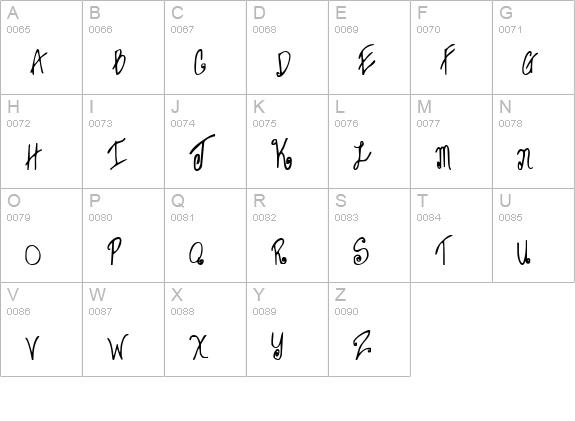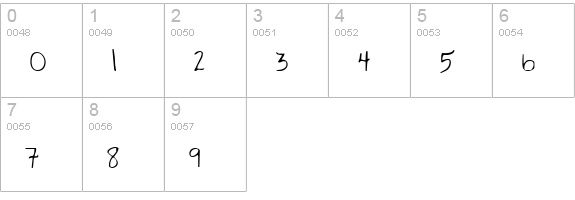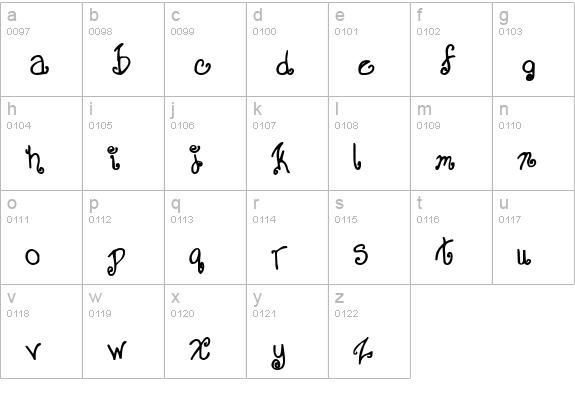
Sweet Janet Font Details
Sweet Janet is a delightful and whimsical font that brings a touch of sweetness to any design project. With its playful curves and elegant strokes, this font is perfect for adding a charming and friendly feel to invitations, greeting cards, and more. The unique letterforms of Sweet Janet create a sense of warmth and creativity, making it an ideal choice for projects that require a touch of personality. Best of all, Sweet Janet is completely free to download at FontsMarket.com. Now you can easily add a touch of sweetness to your designs without breaking the bank. Don't miss out on this wonderful font that will surely bring a smile to your audience's faces. Download Sweet Janet today and let your creativity soar!